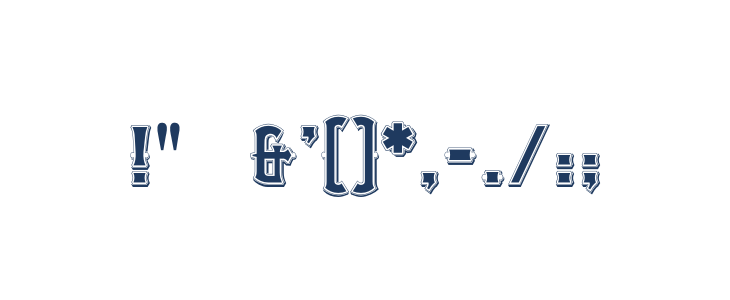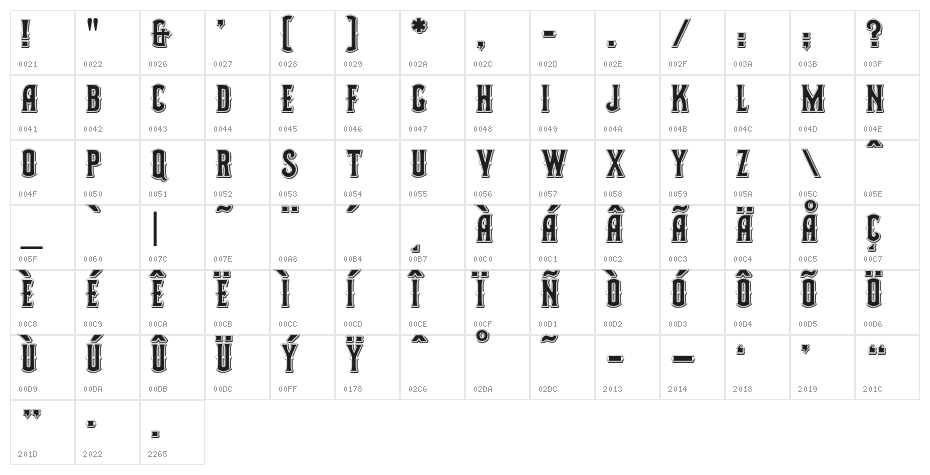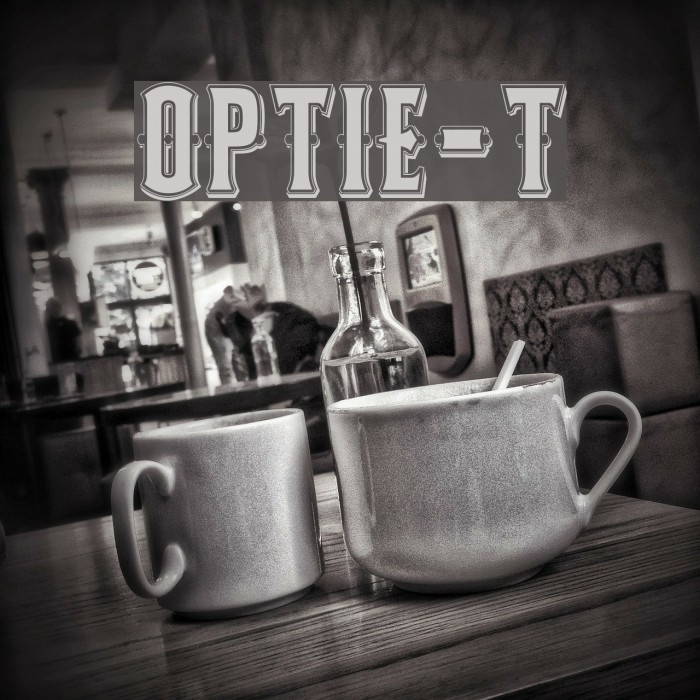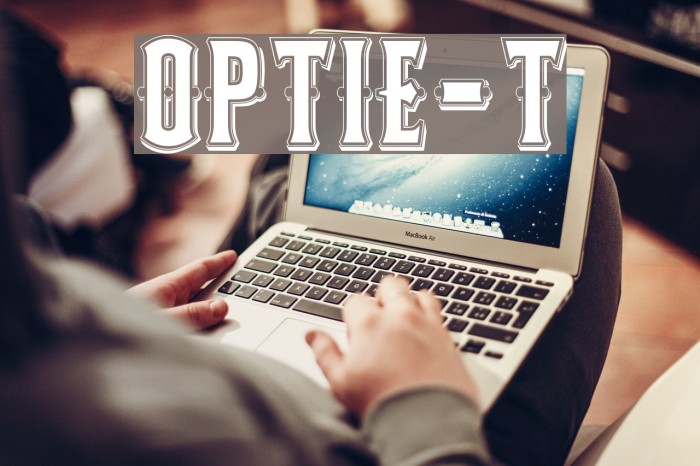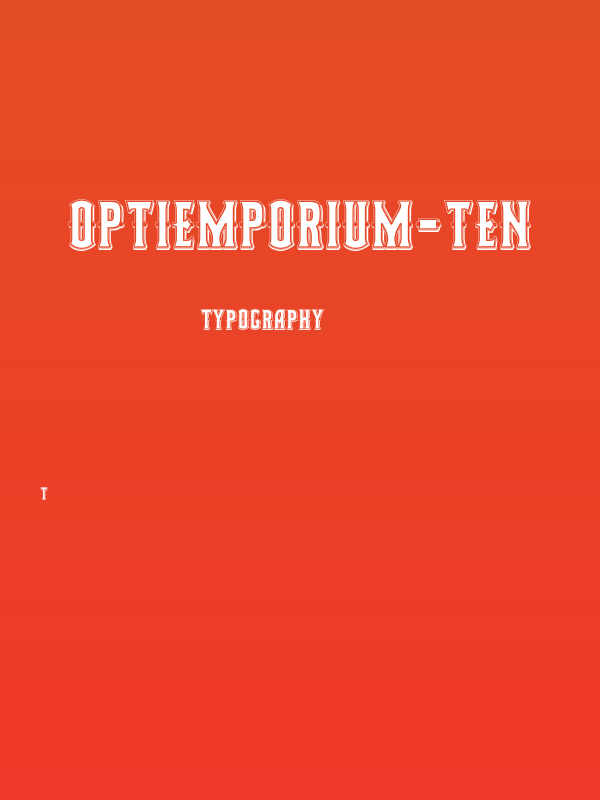
OPTIEmporium-Ten Font
OPTIEmporium-Ten Description
This font features a bold, decorative style with a strong presence. Each character is outlined with a thick border, adding a sense of depth and dimension. The letters have a vintage flair, reminiscent of old-school signage or circus posters. The uppercase characters are particularly striking, with intricate details and a slightly condensed form. The special characters maintain the same bold and decorative style, ensuring consistency throughout the font. This typeface is designed to capture attention and make a statement.
| Proposed Projects | Ideal for posters, signage, branding, and any project requiring a bold, eye-catching typeface. |